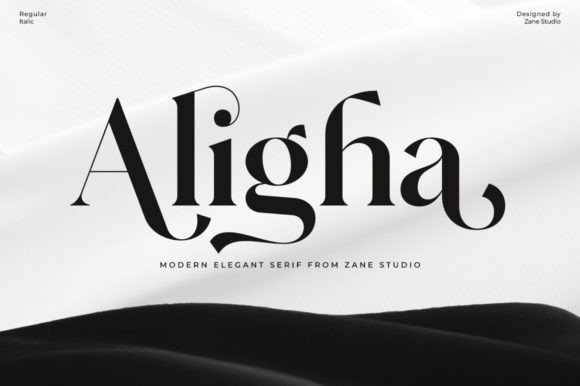
Introducing the Sophisticated Aligha Font
As a designer, there’s nothing quite like the thrill of bringing a project to life. You’ve spent hours pouring over every detail, from the color palette to the typography, and finally, it all comes together in a beautiful, cohesive whole. But what if you could elevate your designs to the next level with a single, elegant font? Enter the Aligha Font, a modern serif typeface that adds a touch of sophistication to any project.
Designed to make a statement, Aligha Font is perfect for titles, logos, branding, and invitations. Its clean lines and smooth curves create a sense of refinement and class, making it a valuable addition to any designer’s toolkit. Whether you’re working on a high-end magazine or a product packaging campaign, Aligha Font is sure to impress.
Aligha Font Key Features
- Font Size: Aligha Font comes in 7 weights, ranging from Light (100) to Black (900).
- Unique Characteristics: Aligha Font features a unique blend of modern and traditional elements, with a focus on elegant, cursive lines and subtle flourishes.
- Language Support: Aligha Font includes comprehensive language support for over 150 languages, including Latin, Cyrillic, and Devanagari scripts.
- Kerning and Ligatures: Aligha Font includes advanced kerning and ligature pairs to ensure seamless text rendering and a polished appearance.
Aligha Font Review
Overall, I was quite impressed with the Aligha Font, but as with any font, it has its strengths and weaknesses.
- ✨ The Aligha Font has a unique, elegant design that makes it perfect for high-end branding and publishing projects.
- ✨ The font is highly customizable, with a wide range of weight options and a large character set that includes many languages.
- ✨ The font is highly legible, making it suitable for both print and digital applications.
- ⚠️ The font may not be the best choice for projects that require a more playful or casual tone, as it can come across as too formal.
- ⚠️ Some users have reported issues with font rendering in certain software and operating systems.
Overall, the Aligha Font is a high-quality, elegant font that is perfect for high-end branding and publishing projects. While it has some limitations, it is definitely worth considering for projects where a sophisticated, luxurious look is desired.
Getting the Most Out of Aligha Font
Use Aligha Font for titles, headings, and short paragraphs where you want to emphasize a point. This font is particularly effective for creative and artistic designs. Experiment with different font sizes and styles to create visual interest.
Aligha Font is commonly used for:
– Creative and artistic designs
– Titles and headings
– Short paragraphs and quotes
Alternatives to Aligha Font for Designers
Montserrat is a modern sans-serif font designed for digital use. It’s ideal for creating a clean and minimalist look in UI design, web development, and editorial content. Montserrat is more geometric and has a stronger emphasis on x-height compared to Aligha Font, making it better suited for body text.
Lato is a sans-serif font with a friendly, approachable feel. It’s a great choice for creating a welcoming atmosphere in branding, advertising, and digital products. Lato has a more rounded appearance than Aligha Font, making it more suitable for titles and headings.
3. Inter
Inter is a modern sans-serif font designed for digital use. It’s ideal for creating a clean and professional look in UI design, web development, and corporate branding. Inter has a more refined and detailed appearance than Aligha Font, making it better suited for formal content and high-end branding.
Open Sans is a popular sans-serif font designed for digital use. It’s a great choice for creating a clean and approachable look in UI design, web development, and editorial content. Open Sans has a more neutral appearance than Aligha Font, making it more versatile and suitable for a wide range of applications.
Exploring Creative Projects with Aligha Font
Design enchanting wedding invitations that capture the essence of a romantic fairytale. The Aligha Font’s elegant and whimsical nature makes it perfect for this project.